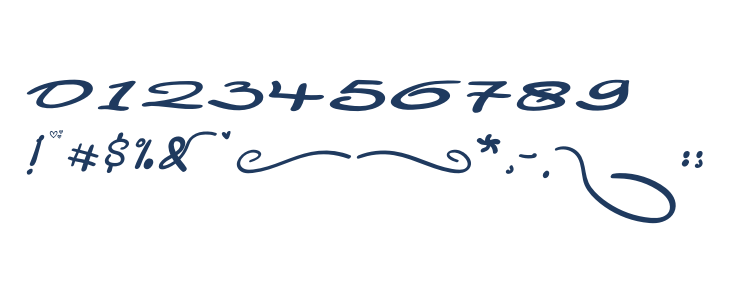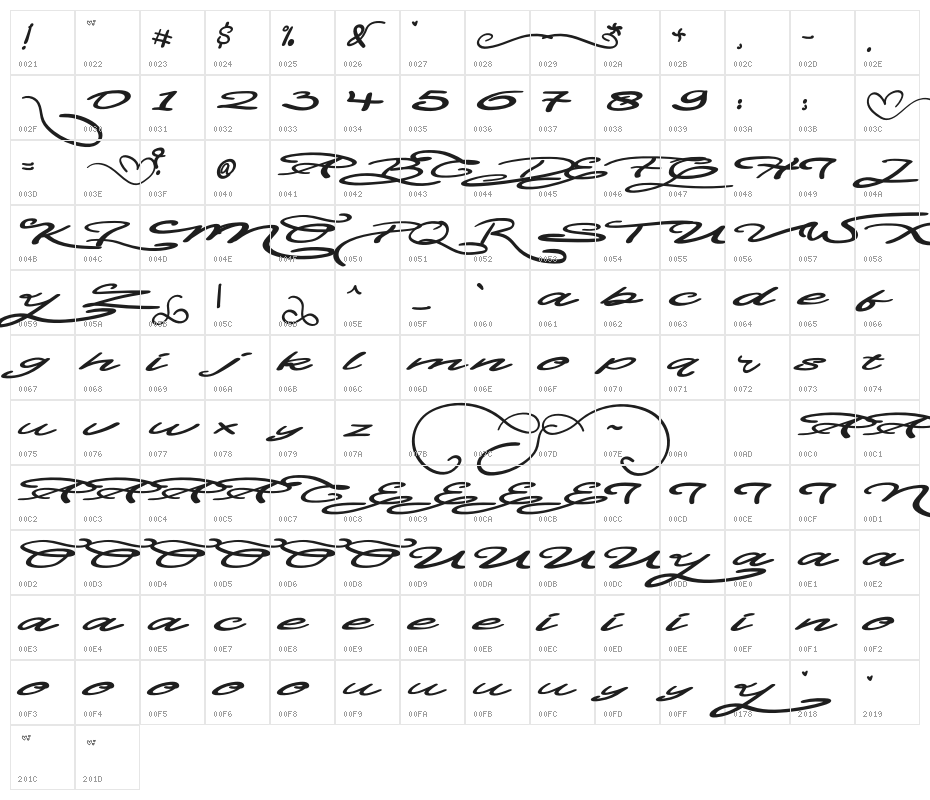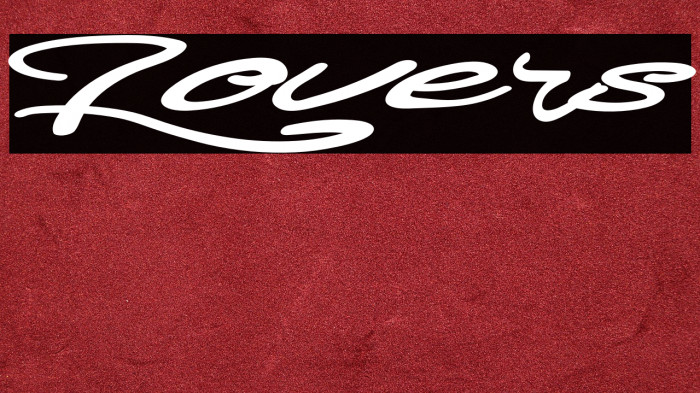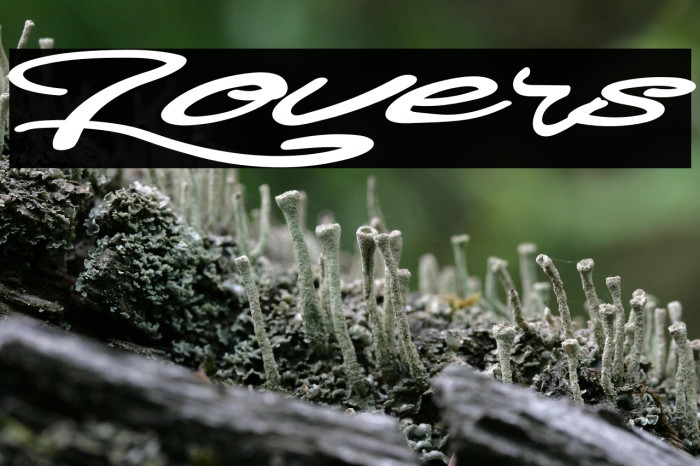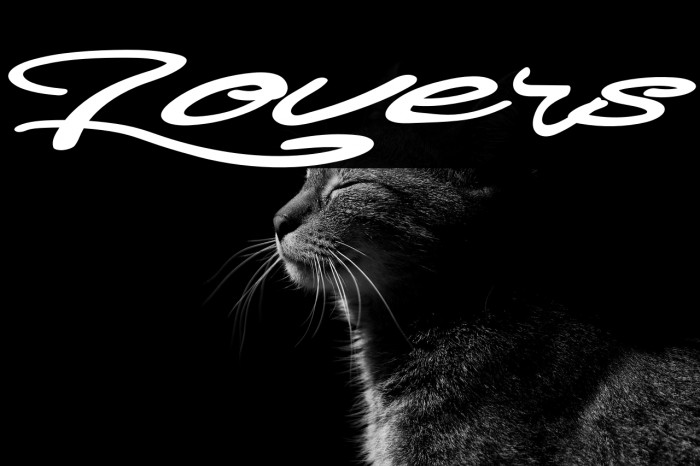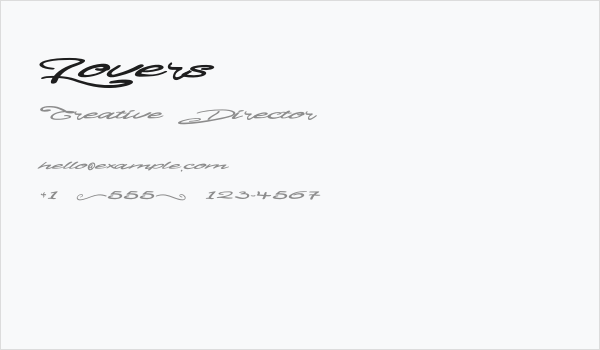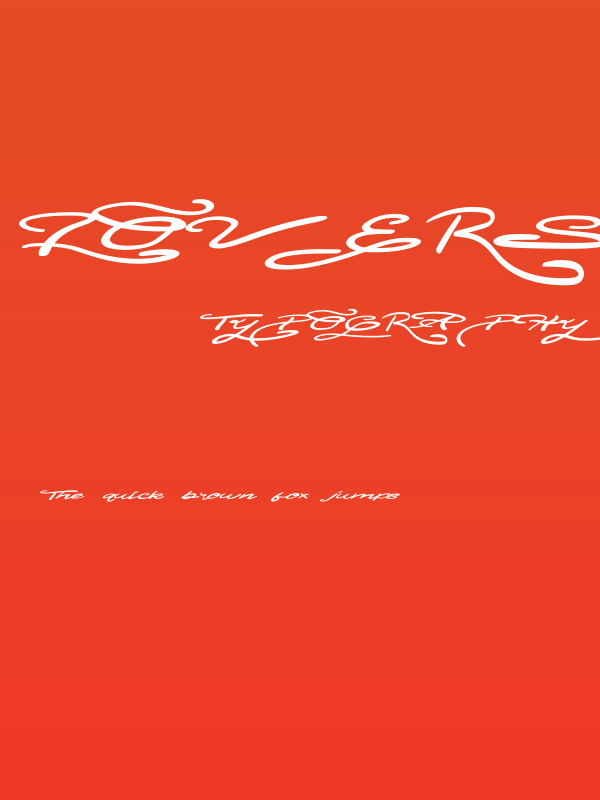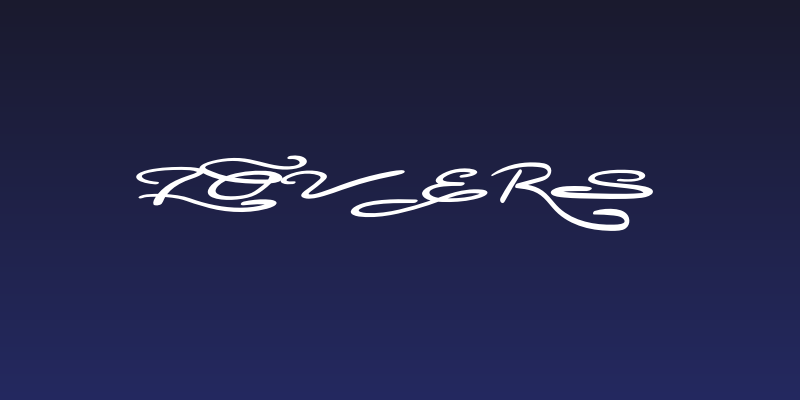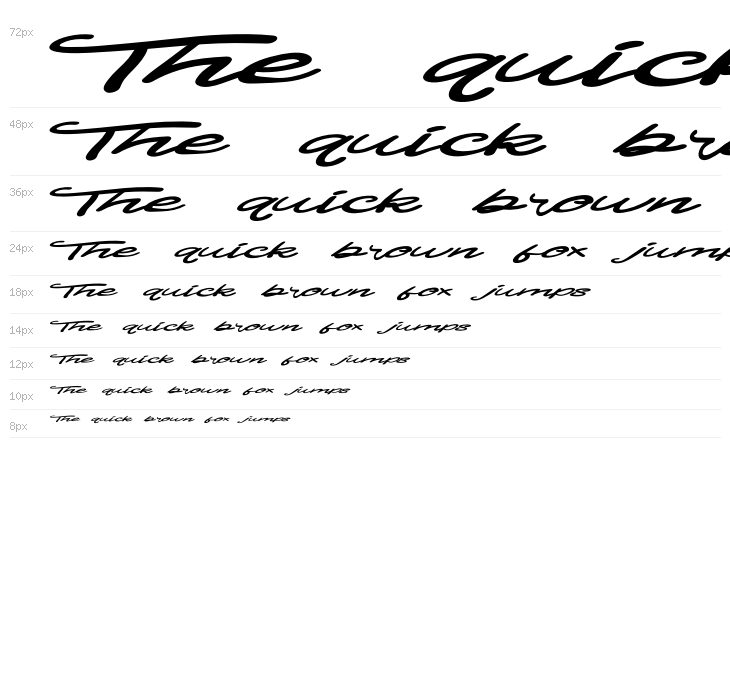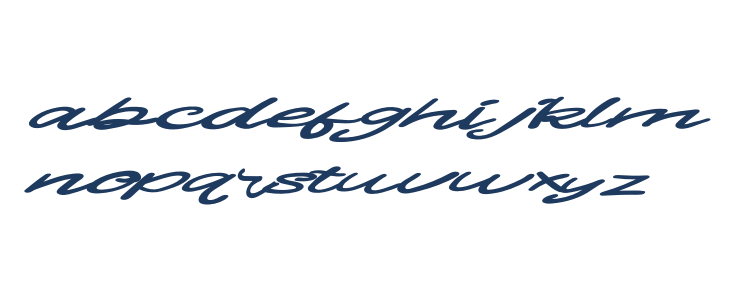
Lovers Font
Lovers Description
This font exudes elegance and sophistication with its flowing, cursive style. The letters are intricately connected, creating a seamless and graceful appearance. The uppercase letters feature elaborate swirls and loops, adding a touch of flair and artistic expression. The lowercase letters maintain a consistent flow, with smooth curves and delicate strokes. Numbers are styled to match the overall cursive theme, ensuring uniformity across all characters. Special characters are thoughtfully designed, incorporating decorative elements that enhance the font's aesthetic appeal. This font is perfect for projects that require a touch of elegance and creativity.